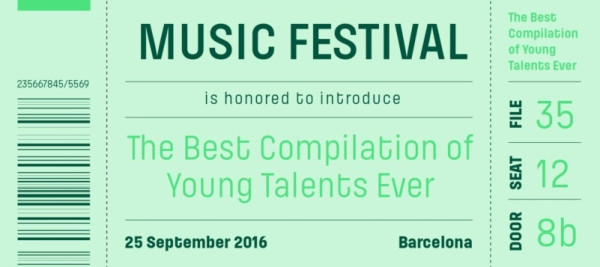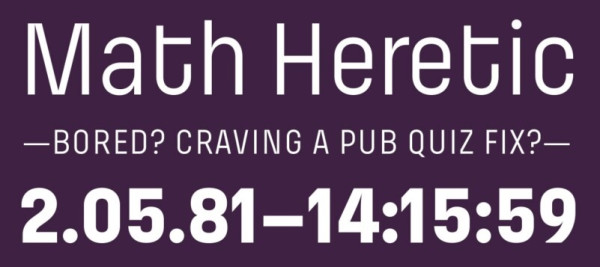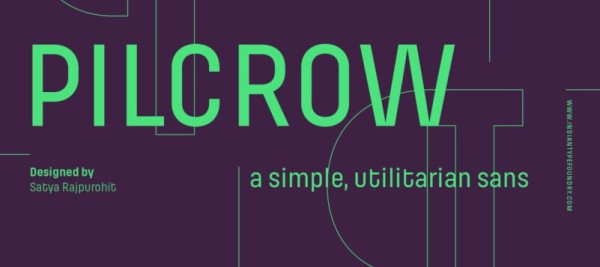
Pilcrow Font
Pilcrow Font is a commanding yet minimalistic typeface that effortlessly adapts to any design context. It comes in two versions: straight-cornered and rounded (Pilcrow Soft) and has 5 weights (Regular through Heavy).
The design does not include Italics, relying on weight contrast for emphasis instead. Pilcrow has square-like proportions with proportional spacing, making it legible for short texts, especially for use in web 2.0-style logos and technology applications.
The Pilcrow Soft version has a friendlier appeal than the squared-off Pilcrow strokes. The deep cuts and large counter forms are prominent features of Pilcrow, visible in letters like ‘A’, ‘M’, ‘N’, ‘V’, and ‘W’ and the lowercase ‘v’, ‘w’, ‘y’ and numeral ‘4’. The lowercase ‘u’ is geometric and full of character, while the numerals have strong diagonal strokes. The typeface name, Pilcrow, comes from the ¶ symbol used to mark the start of a paragraph.